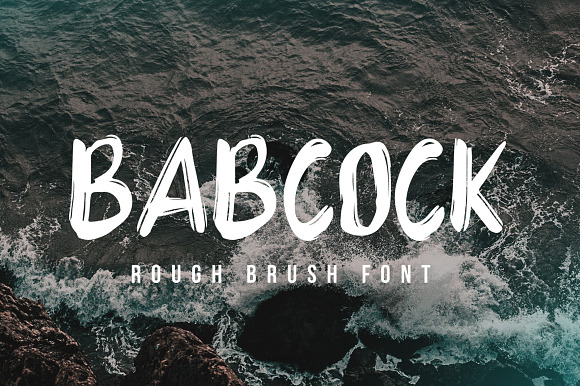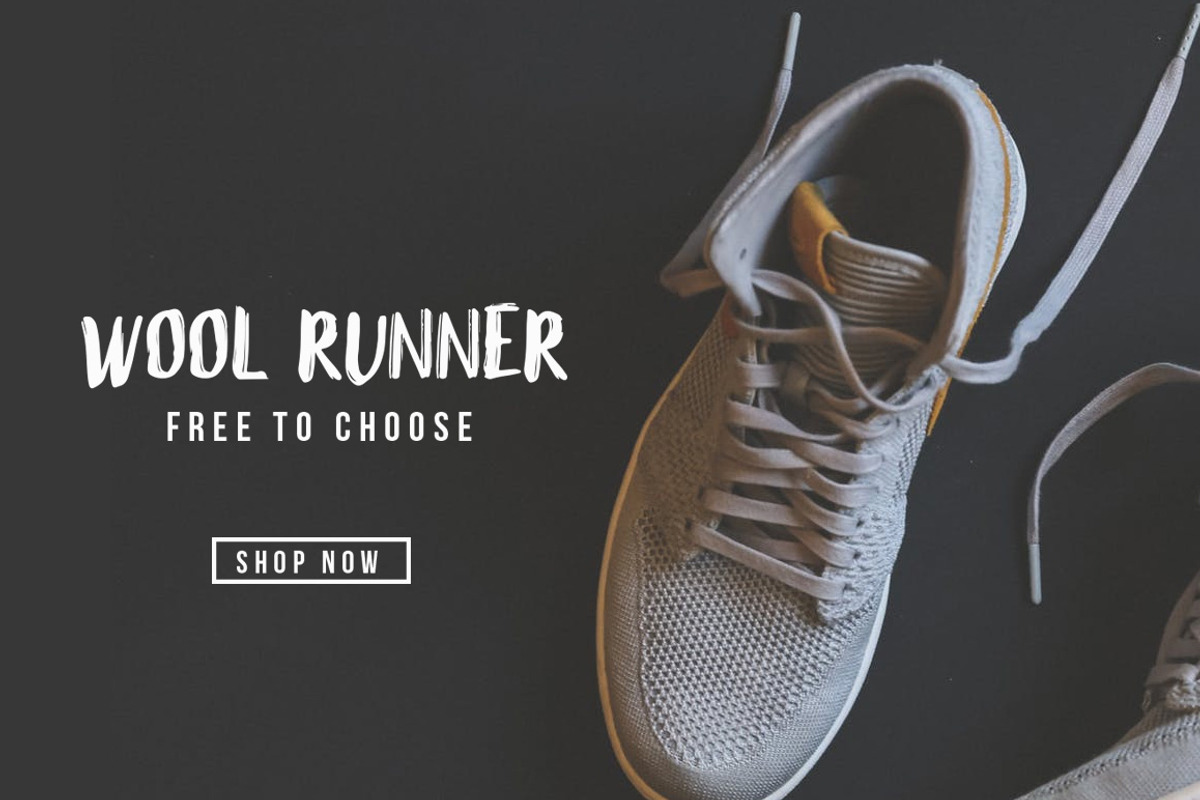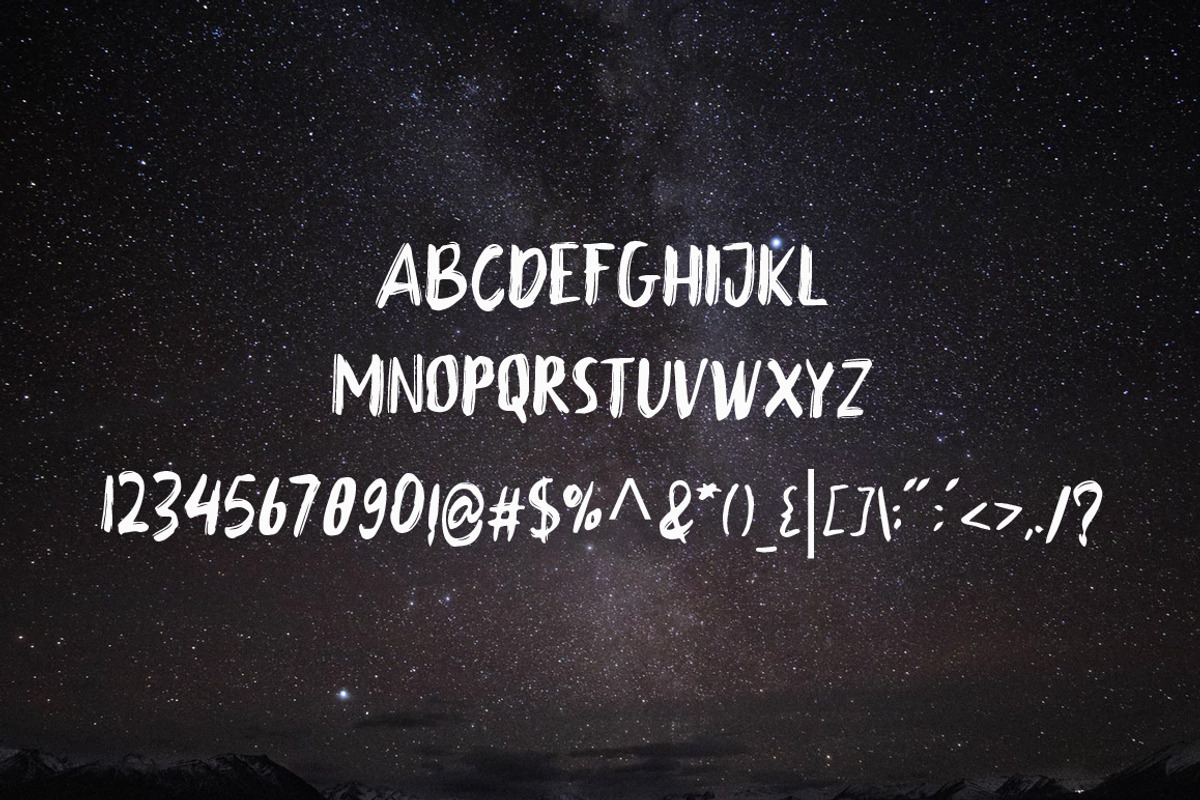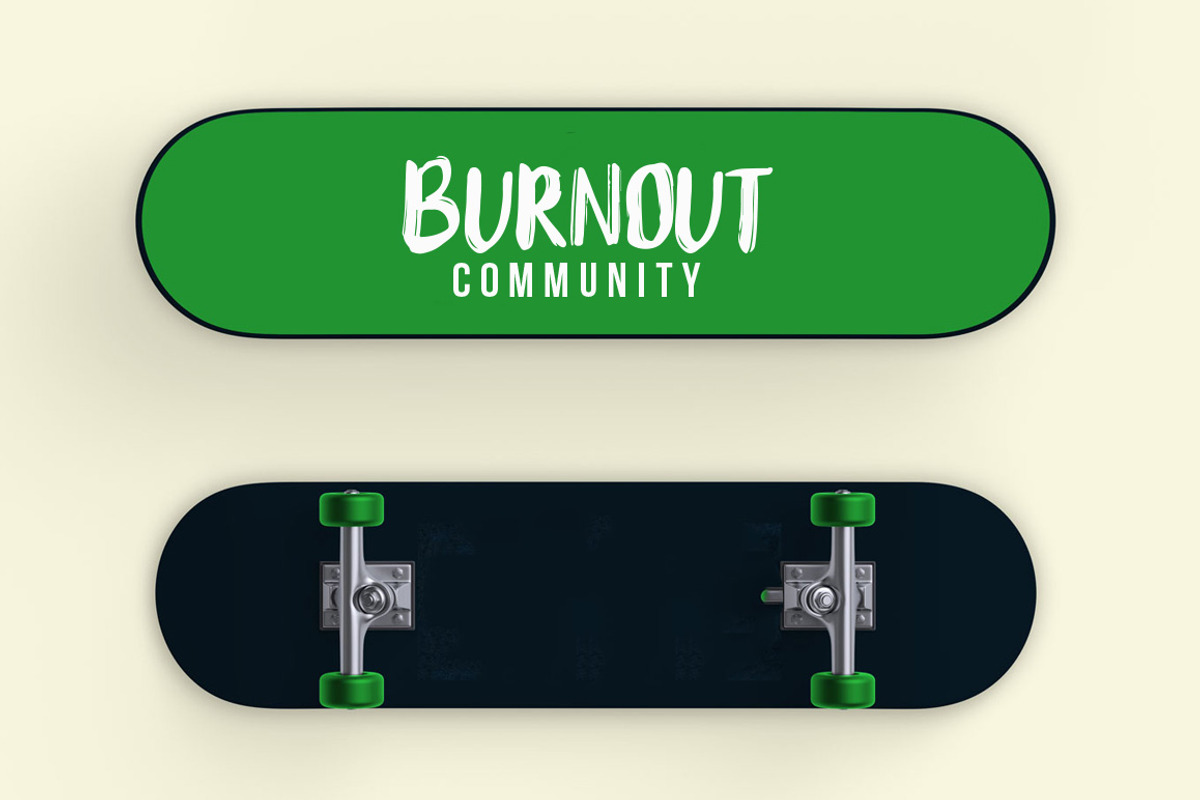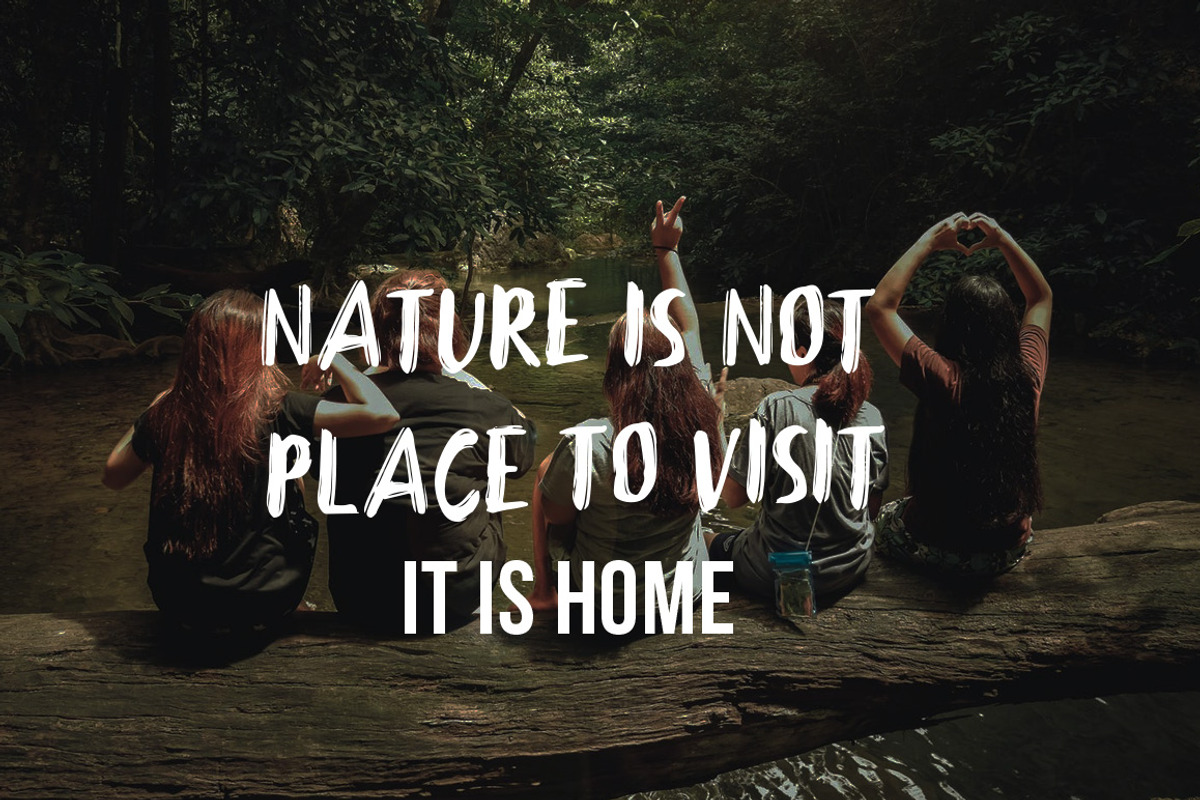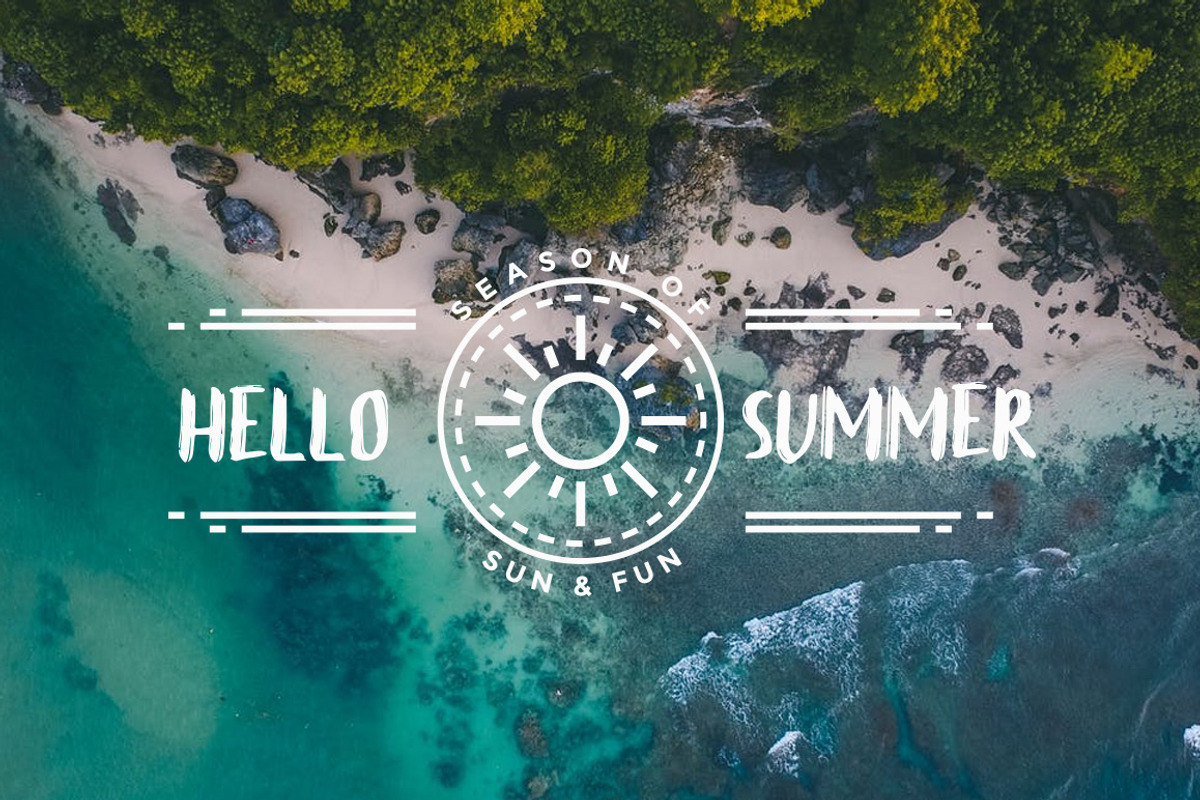
Babbock Brush Font
Babcock Rough Brush Font is a rough brush font with a clear style and good flow This font is great for your next creative project such as Logotype, printed quotes, invitations, cards, product packaging, headers, Letterhead, Poster, Apparel Design, Label, and etc.
Why Babbock Brush Font is worth a look
Babbock Brush Font by Indotitas fits naturally into Branding, posters, packaging, typography.